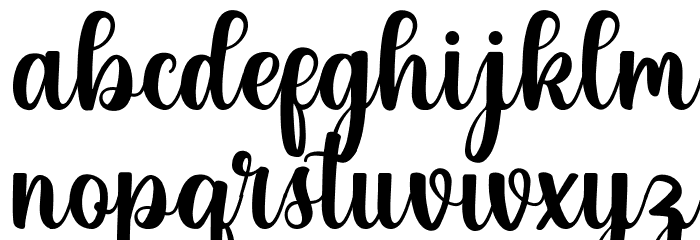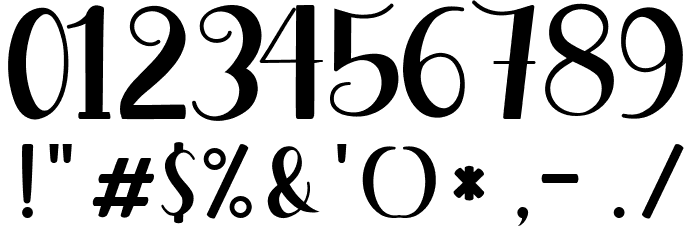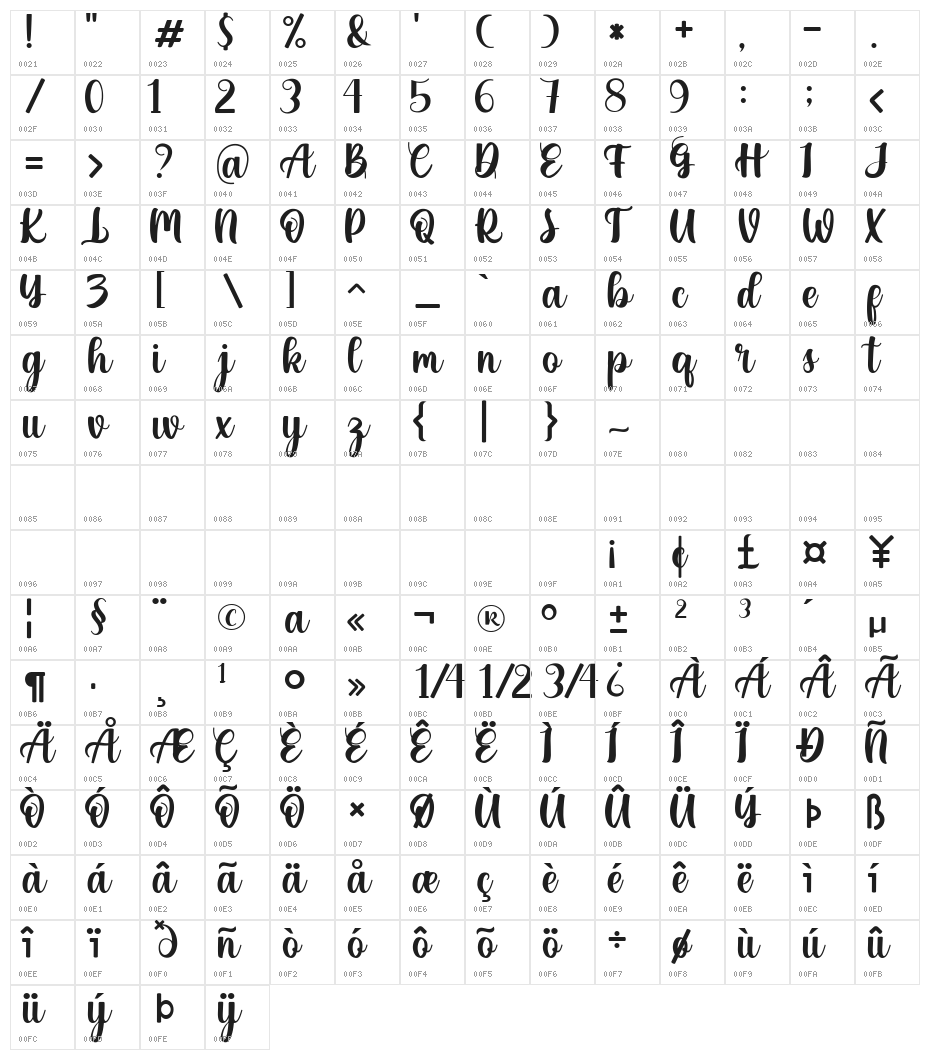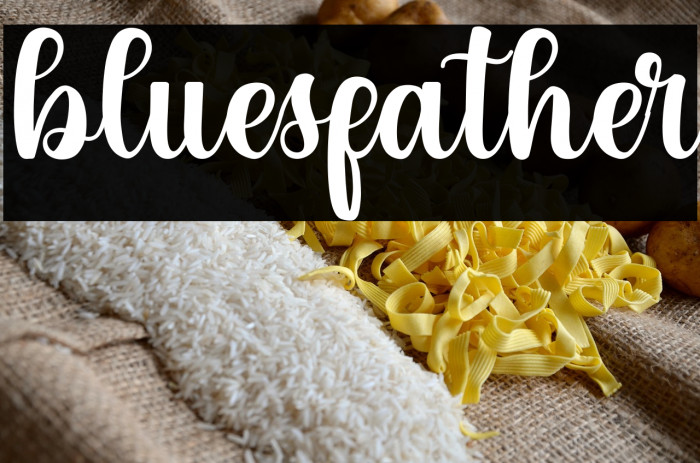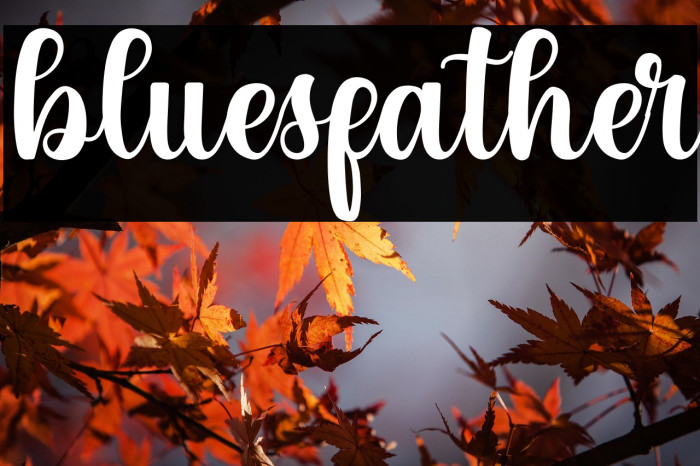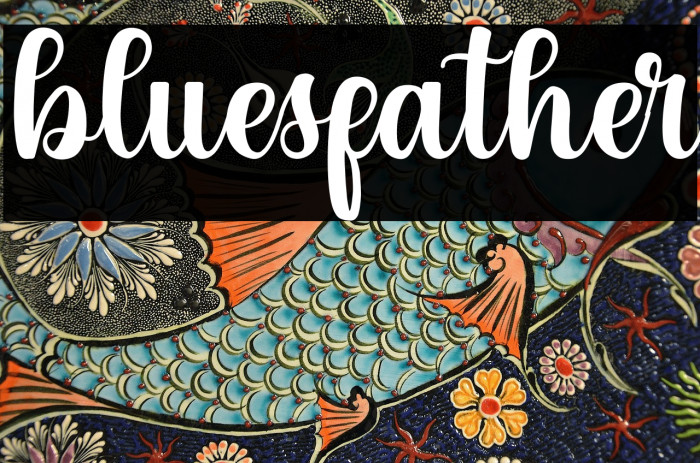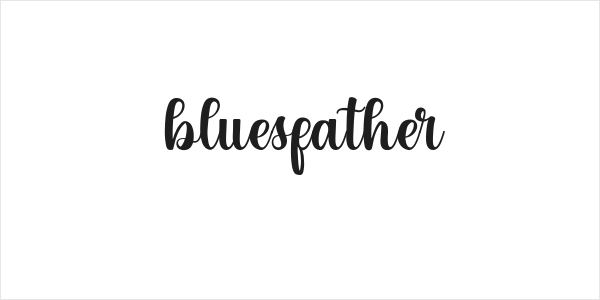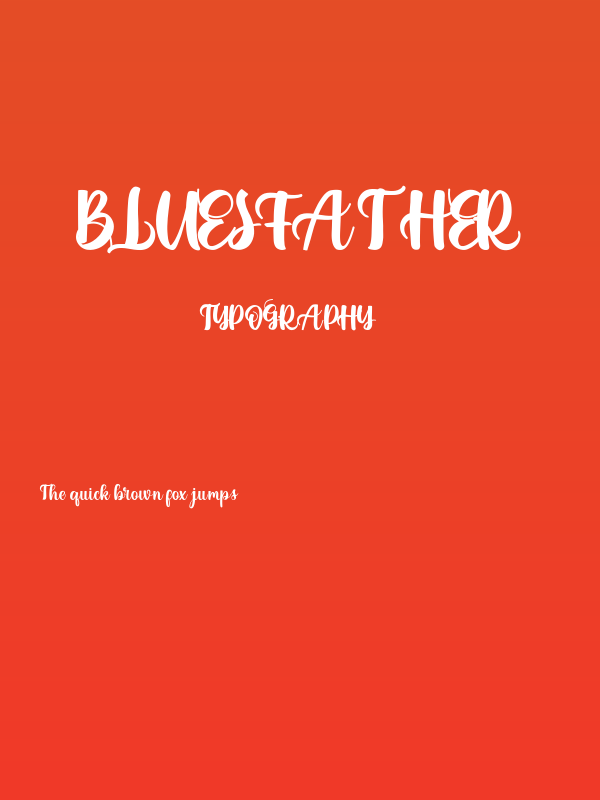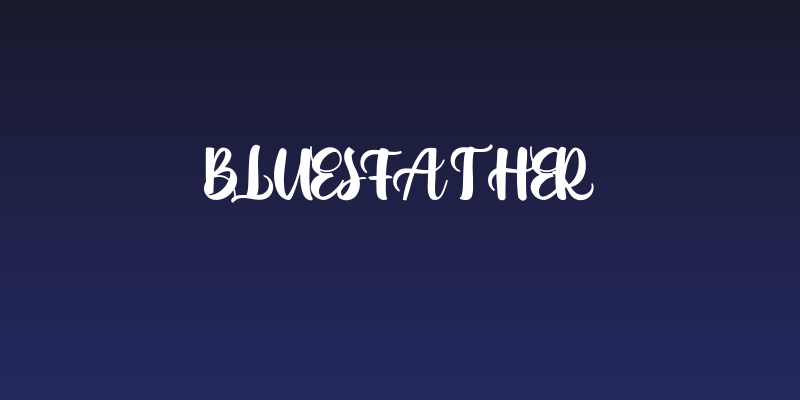
bluesfather Font
This font features a bold and expressive script style, characterized by its flowing, cursive letterforms that exude a sense of elegance and creativity. The uppercase letters are particularly striking, with sweeping curves and flourishes that add a touch of sophistication. The lowercase letters maintain a consistent flow, enhancing readability while retaining the font's artistic flair. Numbers and special characters are designed with the same attention to detail, ensuring a cohesive look across all text elements. This font's overall appearance is both playful and refined, making it suitable for a variety of design projects.
A bold, expressive script font with elegant, flowing letterforms.
- Proposed Projects: Ideal for wedding invitations, branding, greeting cards, and creative design projects.
- Use Case: Logos, Headlines, Invitations